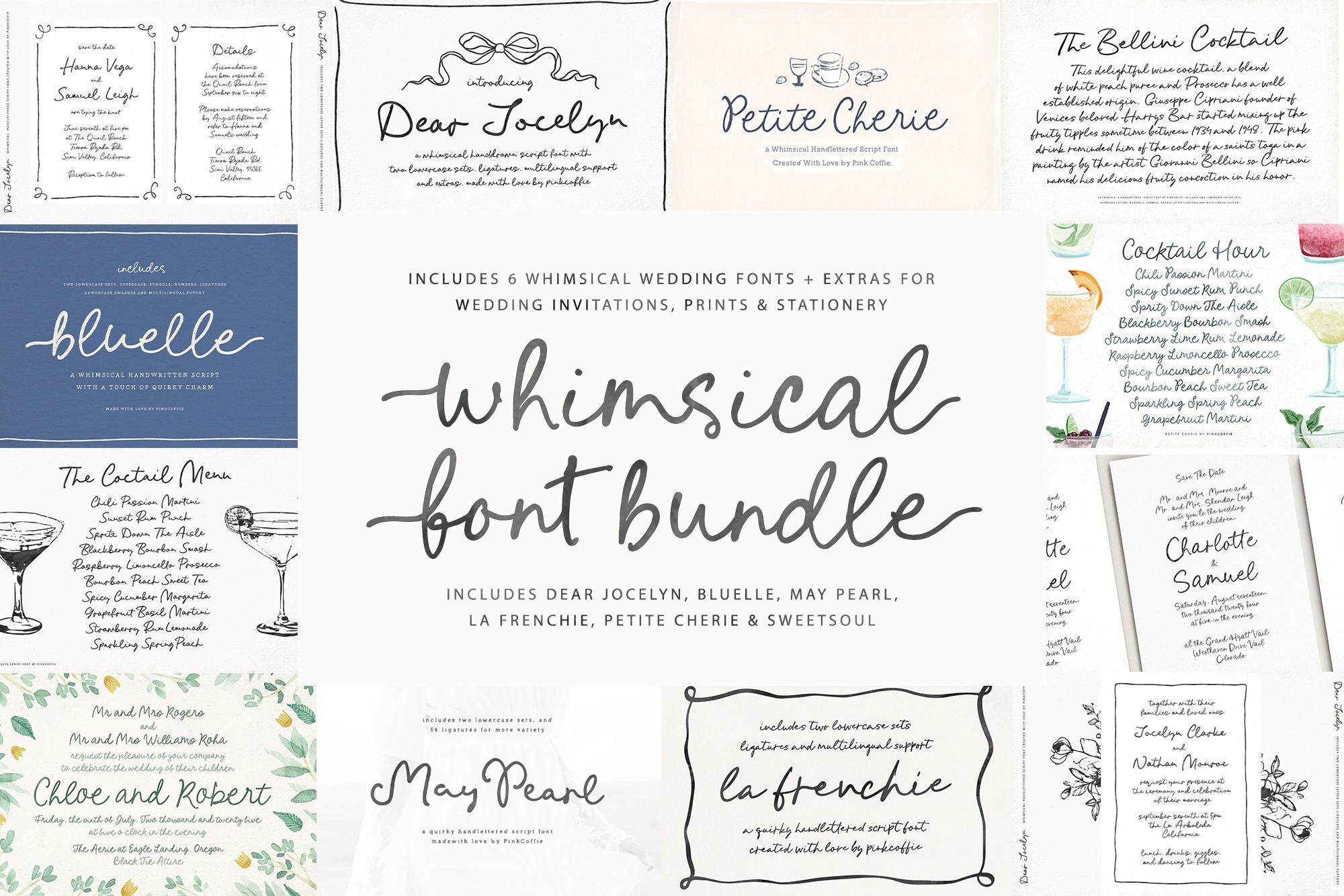
Whimsical Script Font Bundle
Say hello to the Whimsical Wedding Script Font Bundle collection, featuring a total of 6 fonts - 5 trendy whimsical handwritten script fonts & one hand-lettered typewriter serif font, which can be used as is, or mixed and matched with the quirky script fonts. xx
The Whimsical Wedding Script Font Bundle is perfect choice for whimsical wedding invitation templates, menus, wedding stationery, save the dates, greeting cards, prints, apparel, website templates, blogs, social media, packaging, ( and more ) and will get you a total of 6 fonts for a fraction of the full price, so it’s a steal for sure. xx
- La Frenchie - https://creativemarket.com/PinkCoffie/92135667-La-Frenchie-Handwritten-Script
- Dear Jocelyn - https://creativemarket.com/PinkCoffie/220760413-Dear-Jocelyn-Handwritten-Script
- Petite Cherie - https://creativemarket.com/PinkCoffie/279211623-Petite-Cherie-Whimsical-Script
- Bluelle - https://creativemarket.com/PinkCoffie/281853613-Bluelle-a-Whimsical-Wedding-Script
- May Pearl - https://creativemarket.com/PinkCoffie/282322428-May-Pearl-Handwritten-Script
- Sweetsoul - https://creativemarket.com/PinkCoffie/92443301-Sweetsoul-Handlettered-Serif-Font
The bundle is a perfect addition for wedding stationery designers and graphic designers, and features five trendy whimsical script fonts which will work in Canva, Procreate, Cricut, Templett, or any other design software or website of your choice, as well as a classic handlettered typewriter serif which will work perfectly for blogs and website templates as well!